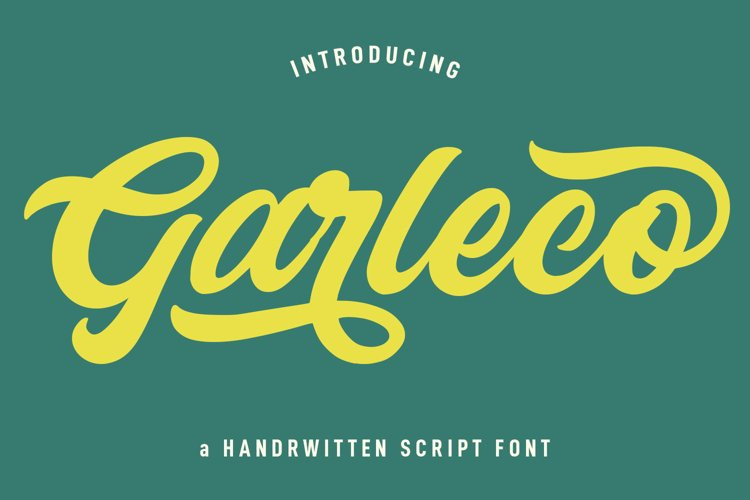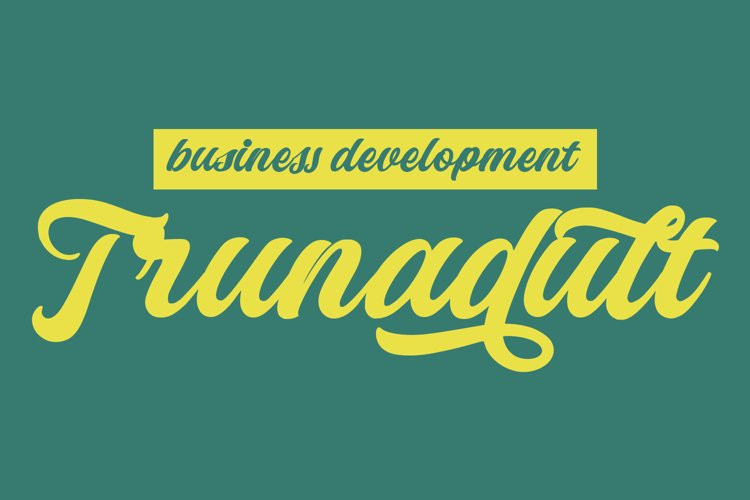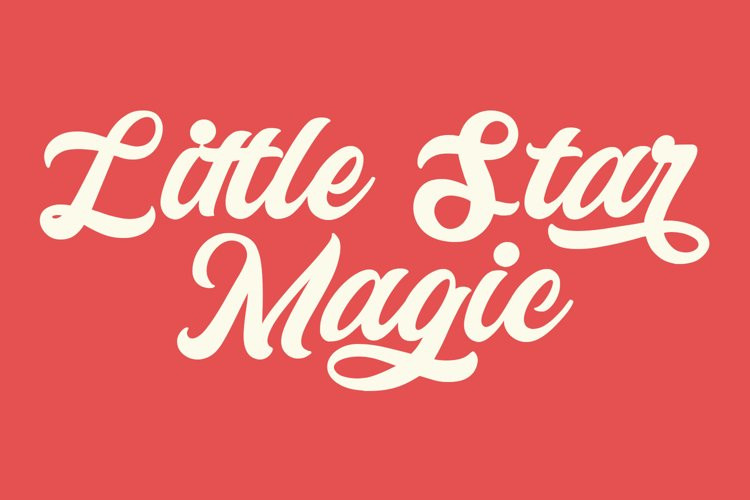
Garleco Font
Garleco FontGarleco is a fancy retro script font. With bold high contrast stroke, fun character with a bit of ligatures and alternate stylistic. To give you an extra creative work. Garleco font support multilingual more than 100+ language. This font is good for logo design, Social media, Movie Titles, Books Titles, a short text even a long text letter and good for your secondary text font with sans or serif. Make a stunning work with Garleco font.